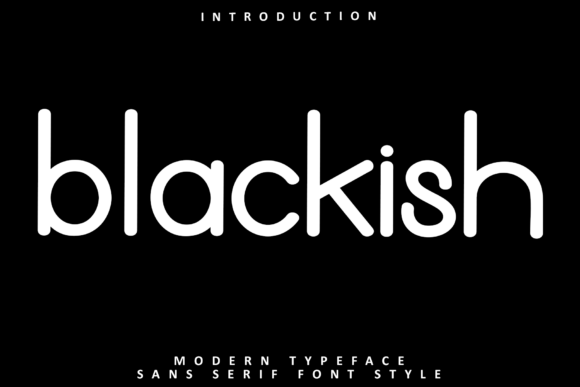
Unleashing Your Creativity with the Perfect Font
Have you ever stared at a blank canvas, struggling to find the perfect words to bring your vision to life? That’s where the Blackish Font comes in – a beautiful and eye-catching design that adds a touch of elegance to any project.
As a versatile and unique font, Blackish Font is perfect for designers looking to add a personal touch to their work. With its distinctive strokes and character, it’s ideal for a wide range of creative projects, from crafting to graphic design. Whether you’re working on a Windows or open-source platform, this natural font style is sure to enhance your designs and captivate your audience.
What sets Blackish Font apart is its compatibility and flexibility, making it a valuable addition to any designer’s toolkit.
Key Features of Blackish Font
- Unique Characteristics: Blackish Font features a bold, modern design with clean lines and a high x-height, making it ideal for use in digital media and print applications.
Blackish Font Review
Overall, I’d say the Blackish Font is a solid choice for any design project. It’s ✨ elegant and sophisticated, making it perfect for luxury or high-end branding. The font’s sleek lines and minimalistic design give it a clean, modern look that’s sure to impress.
- ✨ Elegant and sophisticated design that’s perfect for luxury or high-end branding.
- ✨ Highly legible, even at smaller font sizes.
- ✨ Works well in both print and digital applications.
However, there are some limitations to consider.
- ⚠️ Limited font weights and styles, which may limit its versatility.
- ⚠️ Not suitable for body text or large blocks of text, as it can be quite dense.
- ⚠️ May not be as readable on low-resolution displays or in certain environments.
Overall, I’d give the Blackish Font 4 out of 5 stars. While it’s a great choice for certain projects, it may not be the best fit for every design need. But if you’re looking for a sophisticated, elegant font that’s sure to make a statement, Blackish is definitely worth considering.
Tips for Getting the Most Out of “Blackish Font”
For best results, use “Blackish Font” in combination with a dark or neutral color scheme.
Experiment with different font sizes and styles to achieve the desired effect.
“Blackish Font” is ideal for use in:
- Modern and minimalist designs
- Dark-themed projects
- Professional and corporate branding
Alternatives to Blackish Font
Montserrat is a modern sans-serif font that is highly legible and versatile. It is perfect for use in digital and print media, and can be used for a wide range of applications, including headlines, body text, and navigation menus.
Montserrat is similar to Blackish Font in its clean and minimalist design, but has a more geometric and industrial feel. It is also more versatile and can be used in a wider range of contexts, making it a great alternative for designers who want a font that can adapt to different situations.
Inter is a highly legible sans-serif font that is designed for digital use. It is perfect for use in web and mobile applications, and can be used for a wide range of applications, including headlines, body text, and navigation menus.
Inter is similar to Blackish Font in its clean and minimalist design, but has a more modern and sleek feel. It is also highly customizable and can be easily adapted to different contexts and designs, making it a great alternative for designers who want a font that can be tailored to their specific needs.
Lato is a modern sans-serif font that is highly legible and versatile. It is perfect for use in digital and print media, and can be used for a wide range of applications, including headlines, body text, and navigation menus.